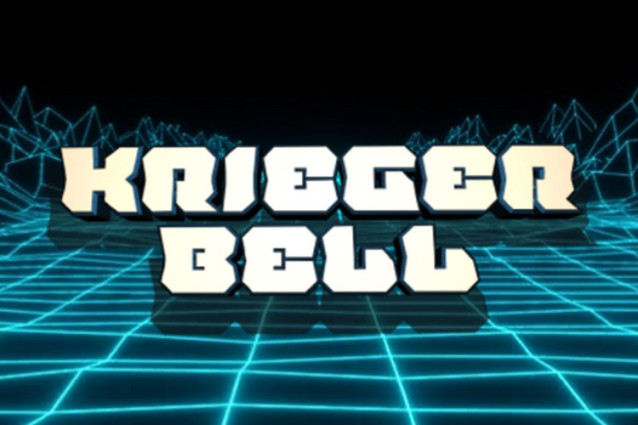
Krieger Bell Font
Krieger Bell Font – This font has a bold, blocky look, with slightly rounded corners, giving it a strong, modern feel. The letters have small cross-hatches inside, creating a unique accent and reminiscent of tech or video game elements.The image uses a drop shadow and outline effect, highlighting the letters against a blue electronic grid, adding to the digital aesthetic.